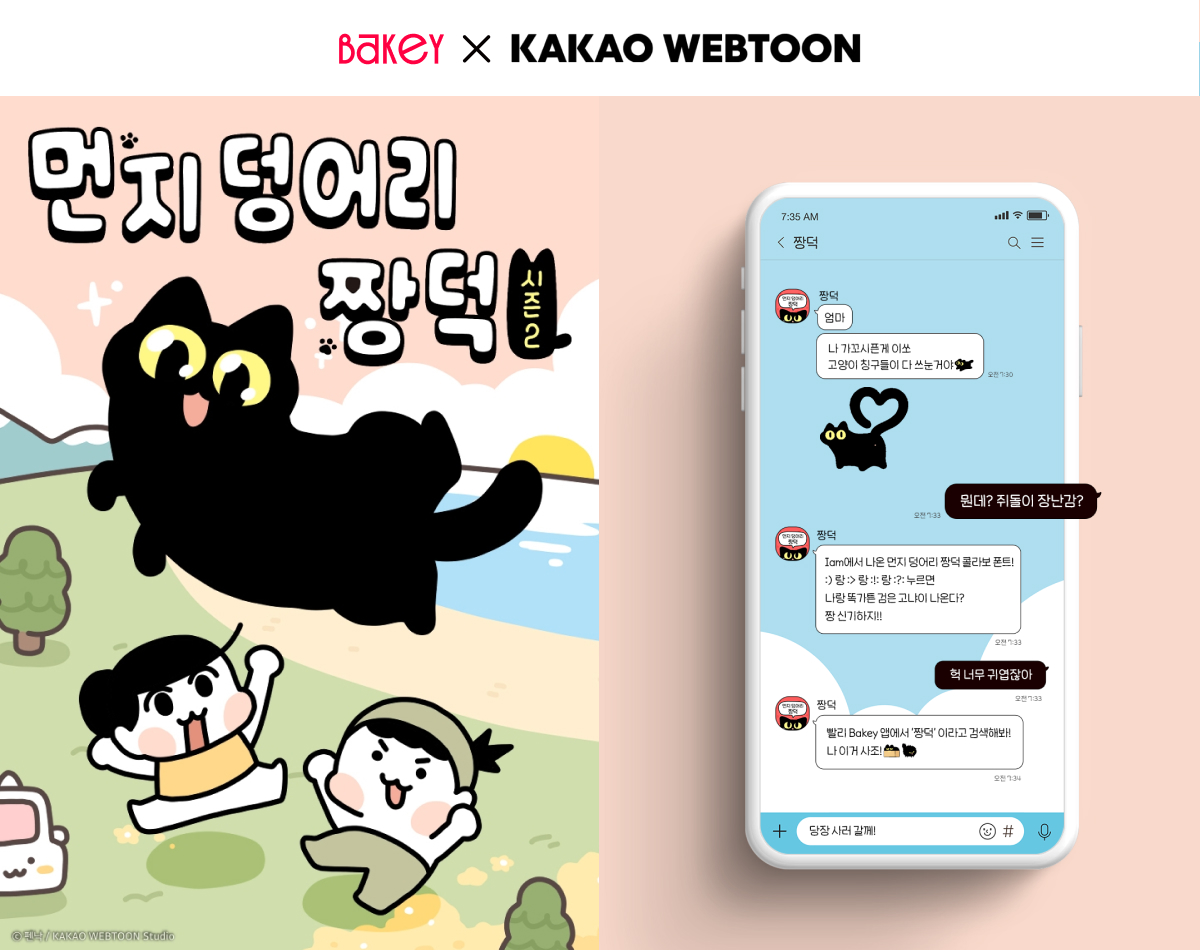
- Collaboration with popular character webtoon Dust Bunny Jjangdeok to launch mobile font “Iam Dust Bunny Jjangdeok”
- Expands the application of font IP across entertainment and content industries, strengthening fonts’ industrial scalability
Sandoll Inc. (CEO Youngho Yun), a content creator platform company, announced that Bakey, its mobile font service, has partnered with Kakao Webtoon, the webtoon platform operated by Kakao Entertainment, to launch a new mobile font, “Iam Dust Bunny Jjangdeok,” in collaboration with the popular character webtoon Dust Bunny Jjangdeok. To celebrate the launch, Bakey is also offering free trial passes and special discount promotions.
This collaboration was designed to expand the use of fonts beyond functional text input into the realm of entertainment, by combining a webtoon IP with a strong fan base among Gen Z and younger millennials with mobile typography. Sandoll and Kakao Webtoon shared a common vision of delivering an experience in which users can enjoy the emotional appeal of beloved character IPs directly within their everyday mobile text input environment—transforming typing itself into a source of enjoyment.
“Iam Dust Bunny Jjangdeok” is a mobile-exclusive font developed using the character “Jjangdeok” from Kakao Webtoon’s popular series Dust Bunny Jjangdeok. The font is available for purchase on Bakey, Sandoll’s mobile font platform.
The font faithfully reflects the handwritten style of the original creator, artist Pennak, and captures the webtoon’s signature soft, adorable aesthetic. A key feature is the implementation of Hidden Dingbat functionality, which allows character illustrations to appear when specific characters are typed in combination—turning the act of typing into an interactive, playful experience. The dingbats also utilize color font technology, enabling vivid, character-matching colors to be displayed in supported environments.
Sandoll and Kakao Webtoon have been actively collaborating to expand fonts as an integral part of content experiences. Moving forward, the two companies plan to continue exploring a wide range of partnership opportunities to deliver engaging, differentiated value in digital environments through close collaboration.